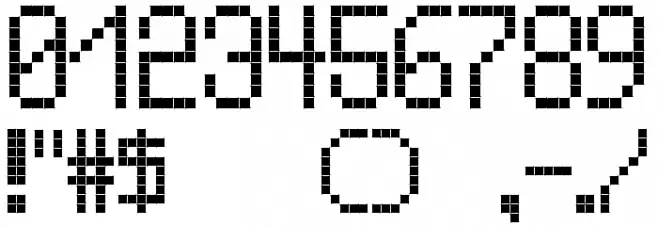
Cross led tfb bold Font
Cross led tfb bold Description
This font features a pixelated, grid-like design reminiscent of digital displays or LED screens. Each character is constructed from a series of small squares, giving it a distinctly modern and technological appearance. The uniformity of the squares creates a consistent texture across all characters, enhancing its digital aesthetic. Despite its blocky nature, the font maintains legibility, making it suitable for both numbers and letters. The design is bold and eye-catching, ideal for projects that require a futuristic or retro digital look.
A pixelated, grid-based font with a digital, LED screen aesthetic from Uncategorized fonts.
- Proposed Projects: Ideal for digital displays, retro-themed designs, video game graphics, and tech-related branding.